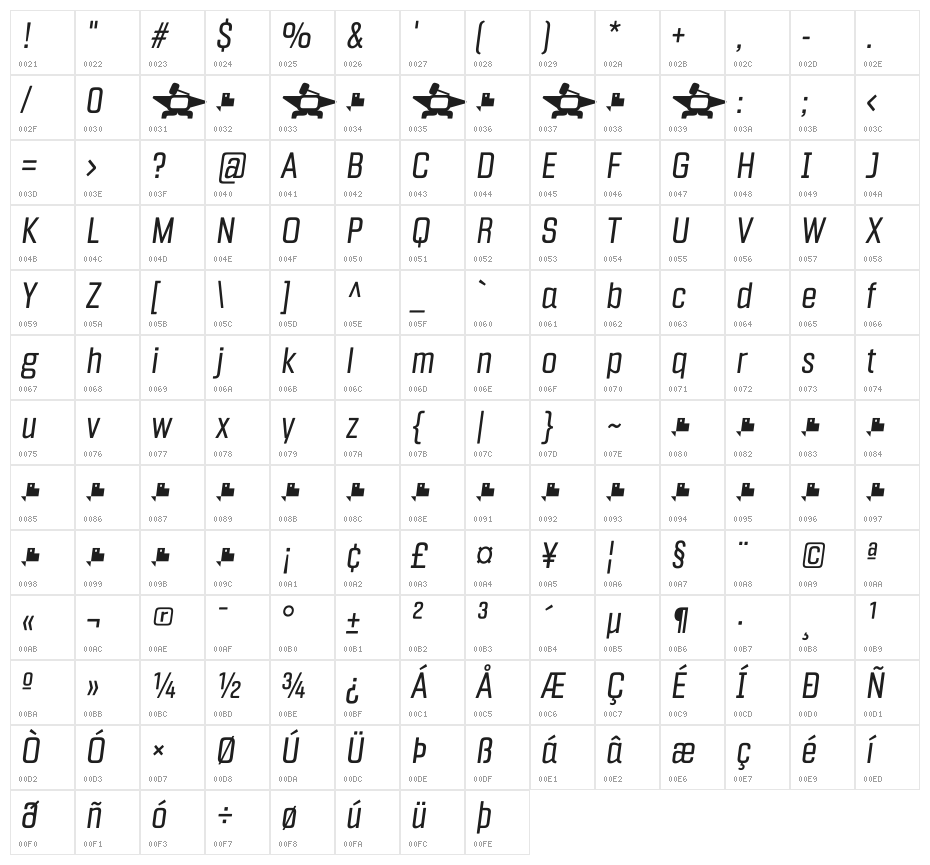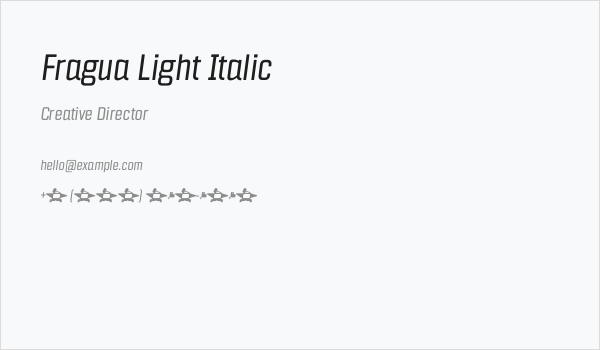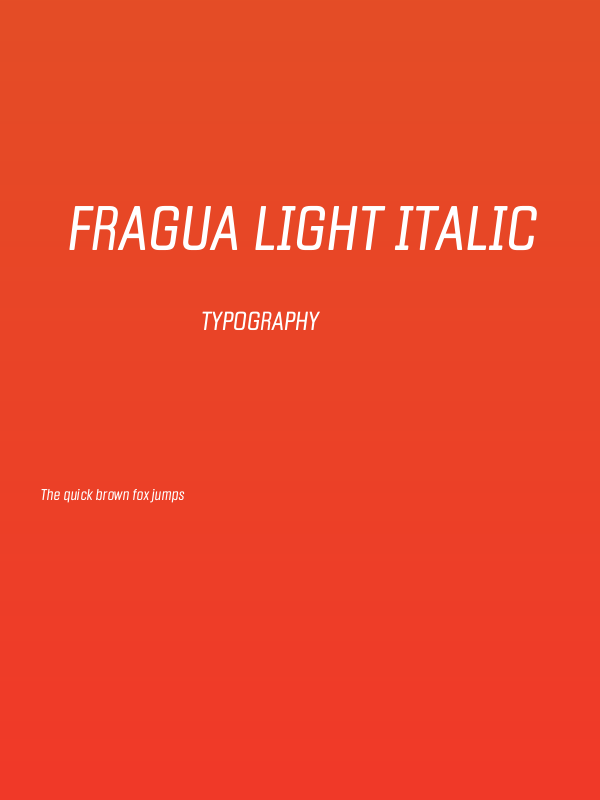
Fragua Light Italic Font
Fragua Light Italic Description
This font features a sleek and modern design with a slight italic slant, giving it a dynamic and forward-moving appearance. The characters are elongated and slightly condensed, providing a streamlined look that is both elegant and contemporary. The strokes are consistent in weight, contributing to a clean and uniform aesthetic. The font maintains a medium contrast between thick and thin strokes, enhancing readability while retaining a stylish flair. The overall design is versatile, making it suitable for a variety of applications where a modern and professional look is desired.